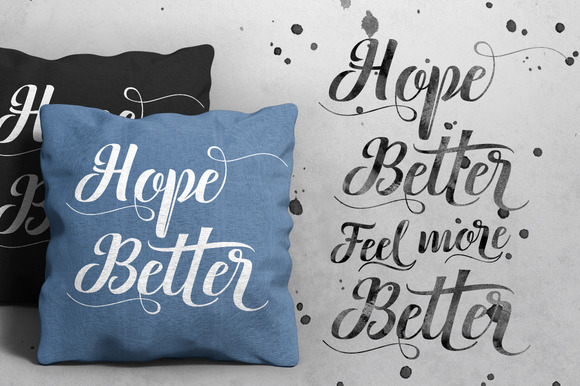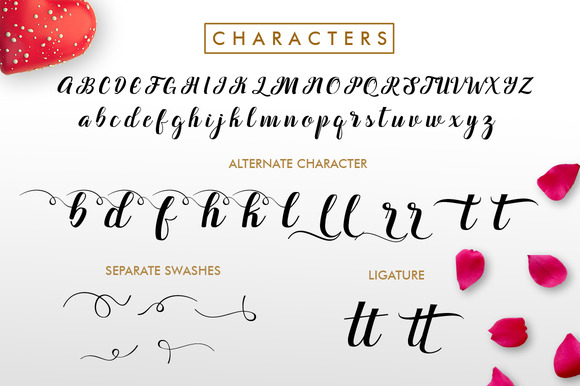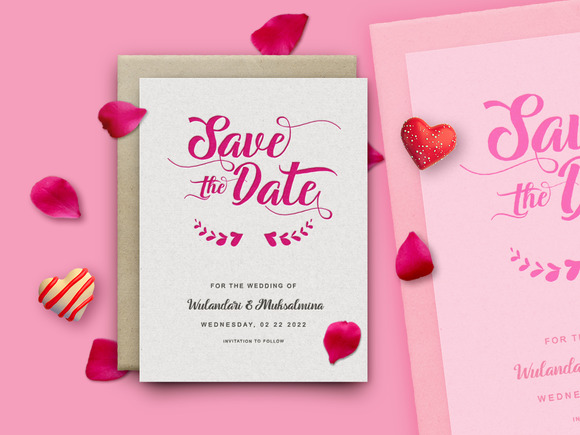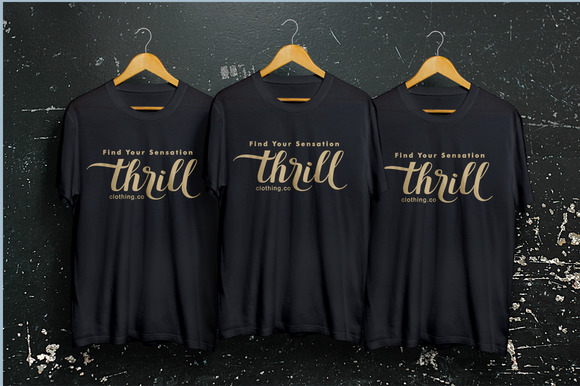
About Hysteria Santa Font
Hysteria Santa is a new, fresh & modern script with a handmade calligraphy style. A charming typeface that would look beautiful on posters, t-shirts, letterheads, logos, labels, wedding invitations, cards, and anything else you can imagine. Add this lovely freebie to your creations and take your designs to the next level!